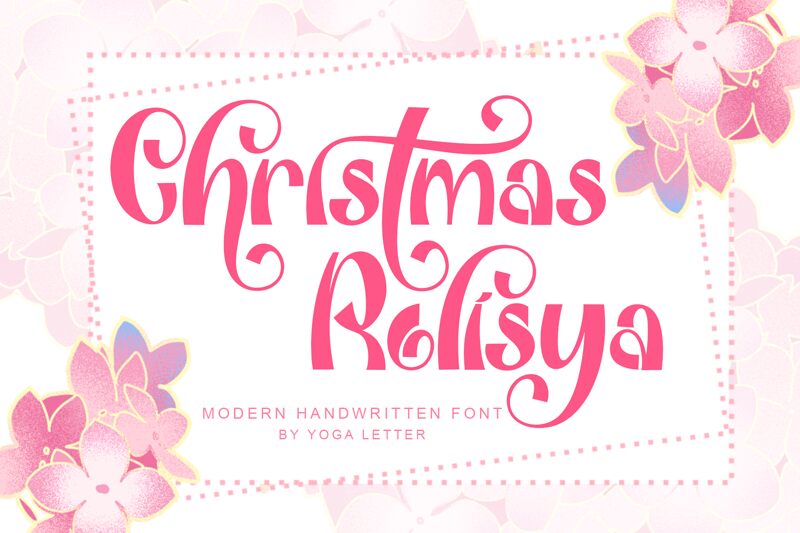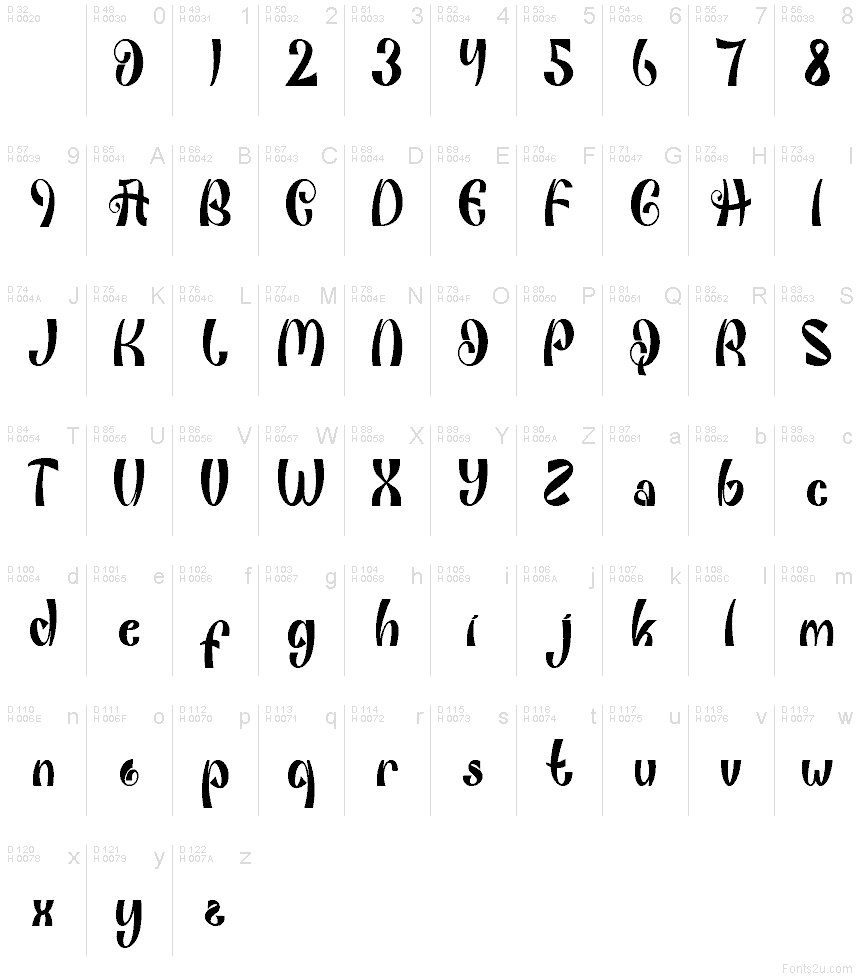
Christmas Rolisya Demo
Christmas Rolisya font by Yoga Letter is a free Christmas script typeface with a playful, hand-lettered charm. Its tall, curling strokes and softly rounded shapes feel like they’ve been drawn with a brush on frosted glass, giving your words a cozy, storybook glow. The letters dance together with a gentle wobble that feels festive rather than messy, making it easy to read while still feeling magical.
Using Christmas Rolisya, you can bring warmth to holiday cards, gift tags, party invitations, seasonal logos, social media posts, and printable decorations. This free font shines when used large, where its swoops and curves can really breathe; pair it with a clean sans serif for body text so the whimsical titles can take center stage.